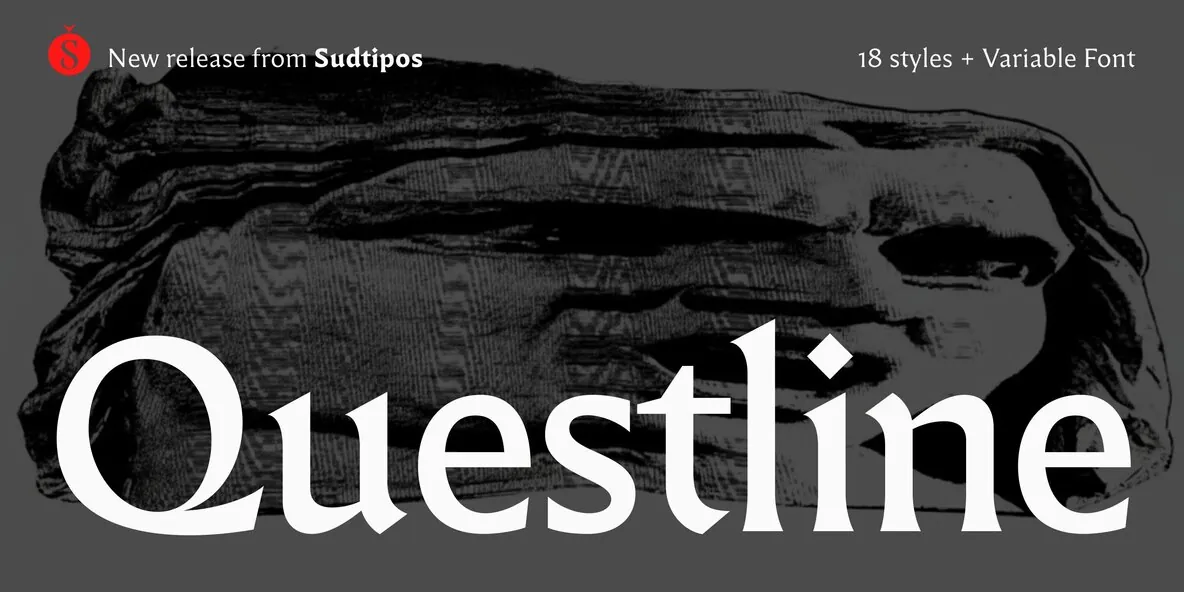
Questline Font
Questline — Flared Serif with Gothic Poise
Questline artfully combines the elegance of Roman typography with the robust structure of Gothic forms. The result is a contemporary flared serif typeface rooted in historical tradition. Questline reimagines medieval letterforms through detailed research and refined design, with careful attention to contrast, rhythm, and optical precision.
The design features consistent stroke modulation and carefully calibrated proportions. This keeps a clear visual harmony between uppercase and lowercase characters. Questline also includes a dedicated set of Gothic-inspired uppercase forms, giving the family a distinct typographic voice that suits expressive display work as well as extended reading environments.
Questline is equipped with multiple OpenType features, extensive language support, and an impressive character set of over 750 glyphs. Spanning 18 styles—nine weights and matching italics—its refined detailing and structural versatility perform reliably across print and digital applications, with a cohesive and confidently bold visual presence.